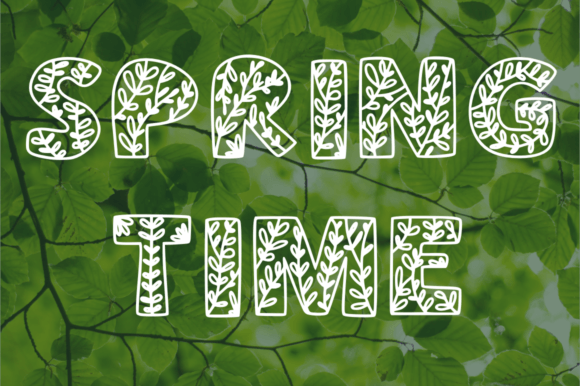
Spring Time Font
Download Spring Time Font for free! Created by Karina Iakovleva Designer and published by Peter Travis, this display font family is perfect for adding a unique touch to your designs.
**Introducing Spring Time Font: Where Nature's Embrace Meets Bold Expression**
Unleash the captivating allure of nature with Spring Time Font, a display typeface that blossoms with intricate beauty. Each character dances with verdant leaves, intertwining an organic symphony of elegance and boldness.
Dive into a world where words take on a vibrant new life, pulsating with the energy of nature's embrace. Spring Time Font invites you to craft designs that resonate with the rhythms of the earth, inviting viewers on a sensory journey where the wild meets the refined.
Let this font ignite your creativity, inspiring logos that exude an earthy charm, posters that whisper the secrets of the untamed, and packaging that captures the essence of nature's bounty. Elevate your branding materials, infusing them with the captivating allure of the natural world.
With Spring Time Font, you're not just downloading a font; you're embracing a world where imagination blooms freely, where the boundaries of creativity blur, and where the enchanting power of nature intertwines with the boldness of artistic expression.
**Created by the visionary designer Karina Iakovleva,** Spring Time Font embodies the harmonious fusion of nature's grace and typographic artistry. Its strong, organic style beckons you to create designs that demand attention, leaving an enduring impression that echoes the timeless beauty of the natural world.